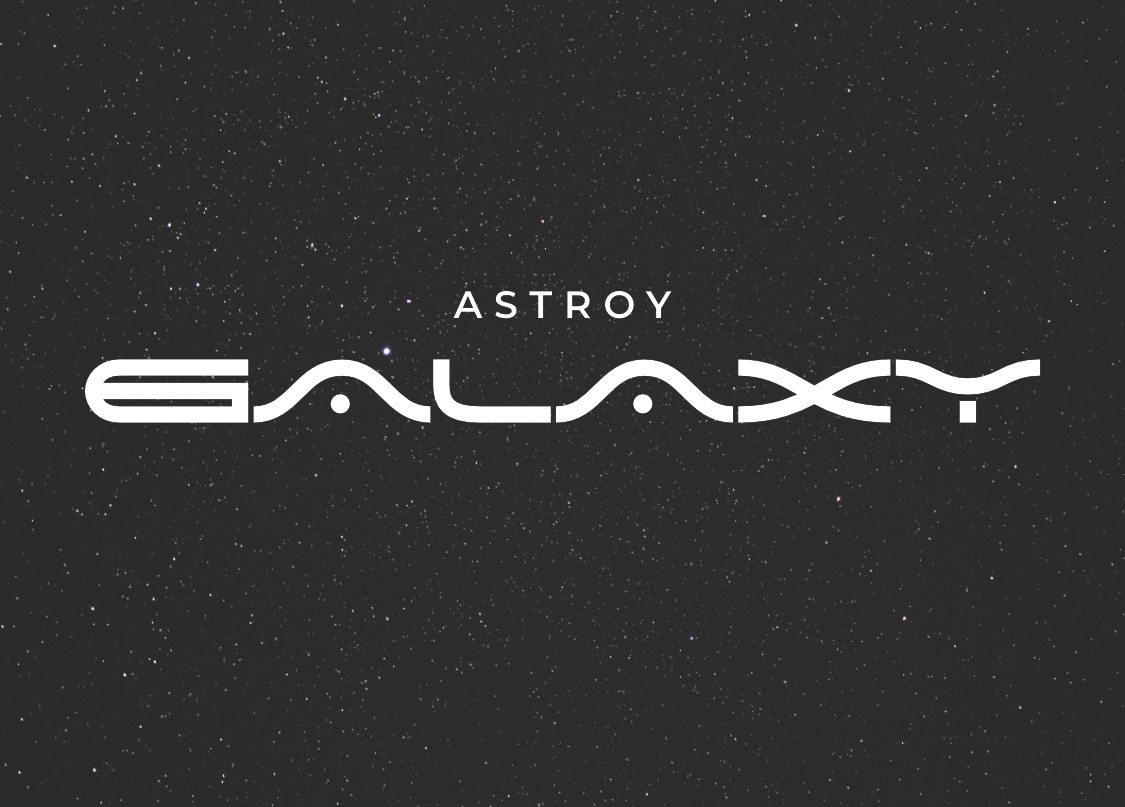
Astroy Galaxy Modern Futuristic Font
Astro Galaxy is a modern, space-age font designed for bold branding, sleek logos, and forward-thinking design. With its clean lines and high-tech vibe, it’s made for projects that live at the intersection of technology, innovation, and style.
Perfect for logo tech, engineering concepts, and anything that needs a futuristic edge, Astro Galaxy combines technical precision with minimalist cool. Whether you're designing for a fashion-forward brand, a creative startup, or a cutting-edge tech company, this font delivers next-level energy with a sharp, modern finish.
Built for the future but grounded in clean, smart design—Astro Galaxy is your go-to for branding, logos, and any project where style meets science.